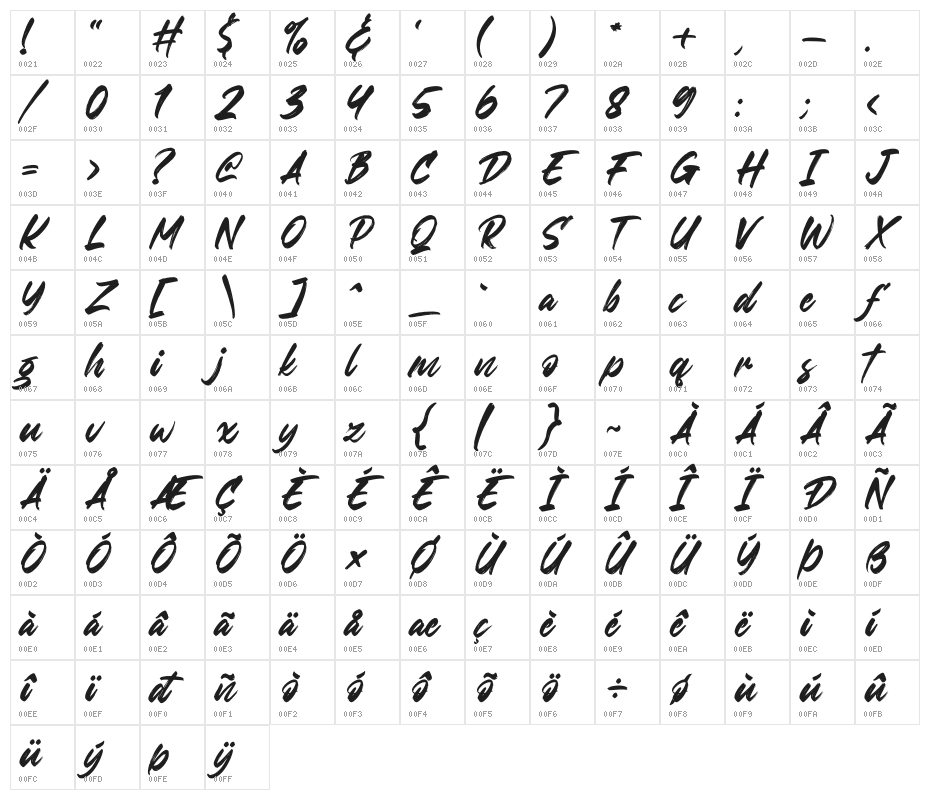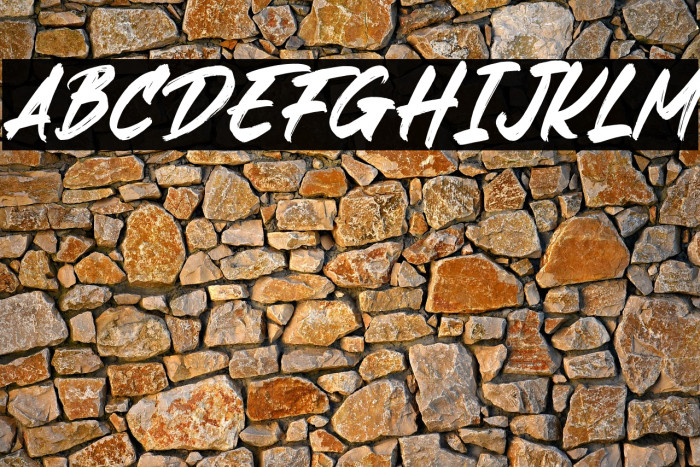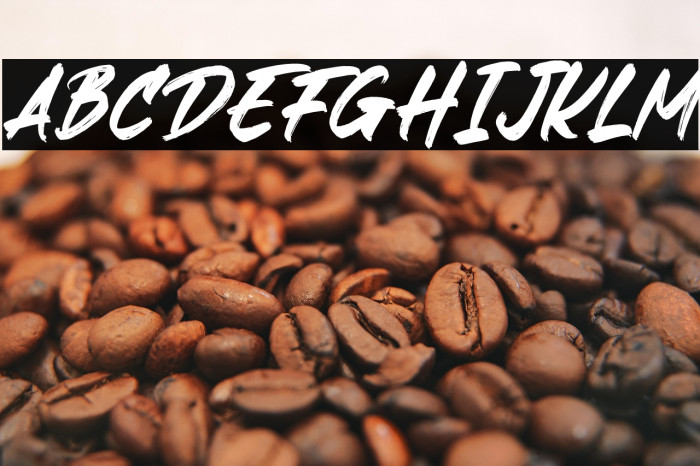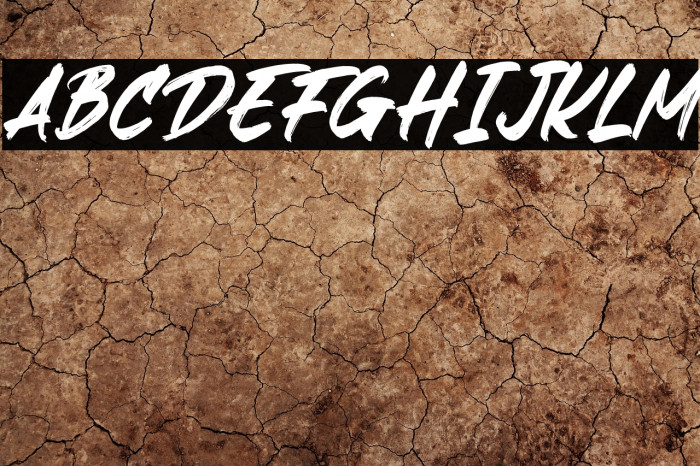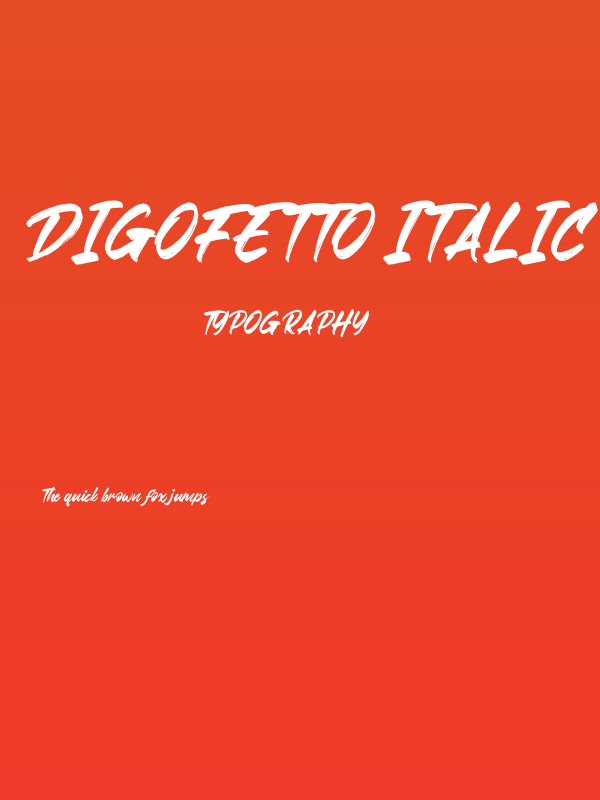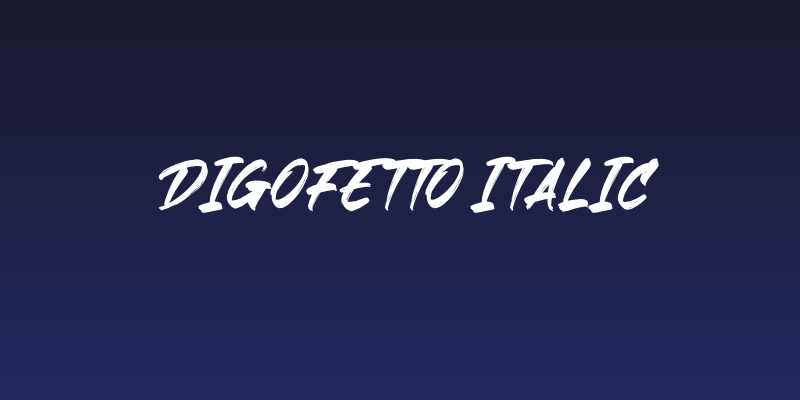
Digofetto Italic Font
Digofetto Italic Description
This font exudes a dynamic and energetic style, characterized by its bold, brush-like strokes that give it a handwritten appearance. The letters are slanted, adding a sense of motion and fluidity, typical of italic styles. The uppercase and lowercase letters maintain a consistent flow, with some characters featuring unique flourishes that enhance its artistic appeal. The numbers and special characters are equally expressive, maintaining the same bold and brush-like quality. This font is perfect for projects that require a personal, creative touch.